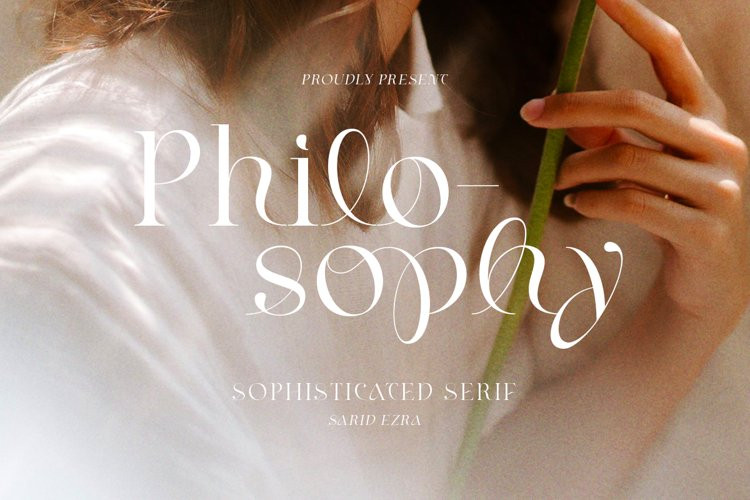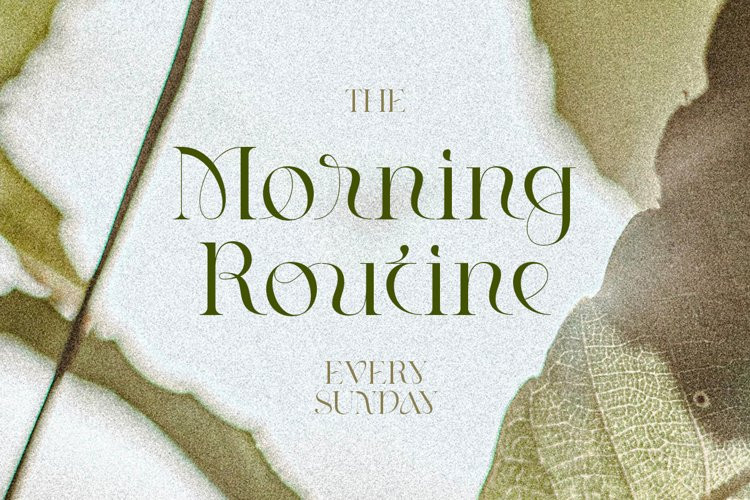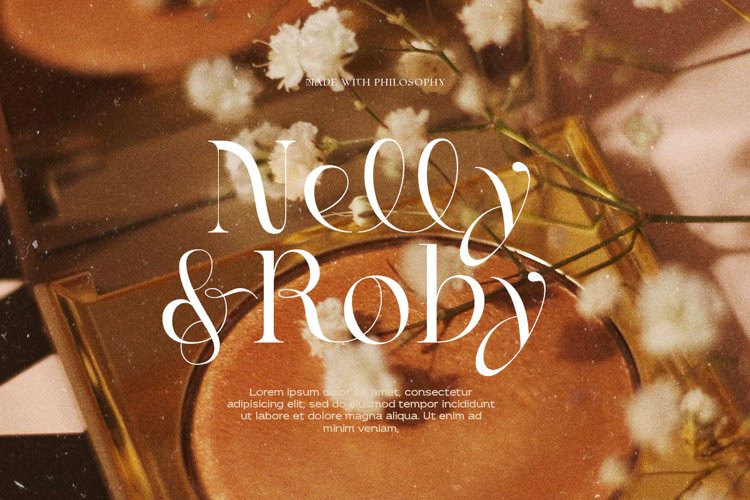
Philosophy Font
Philosophy FontPhilosophy is an elegant and unique serif with a bunch of features that will make your presentation or logo more stunning, beautiful and sophisticated! You can use this font for any purposes such as a wedding invitations, logo, or even for branding!** This fonts support Multi Language. Also comes with beautifully crafted details that make this font more stylish and meaningful.